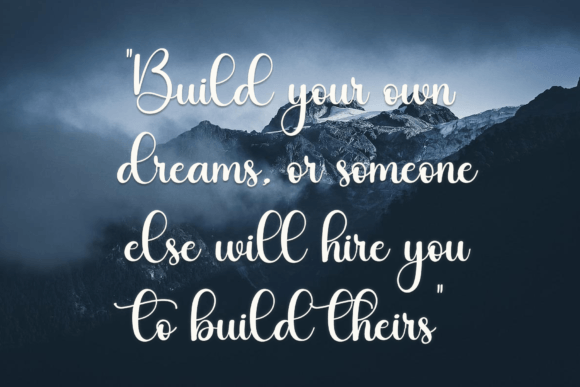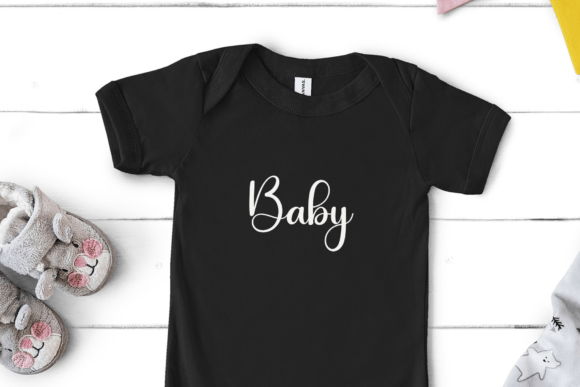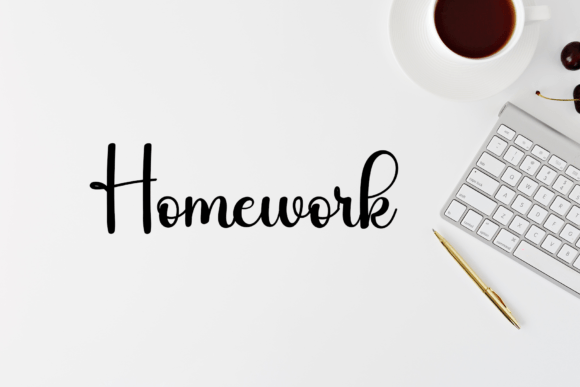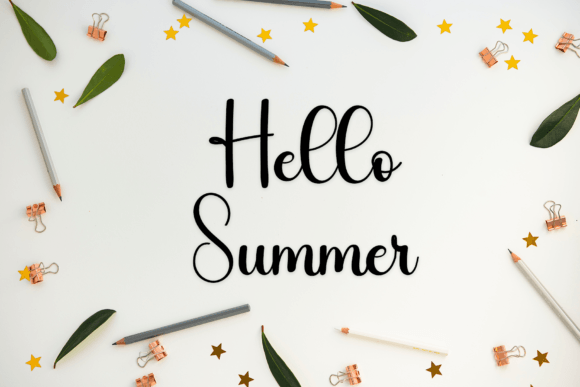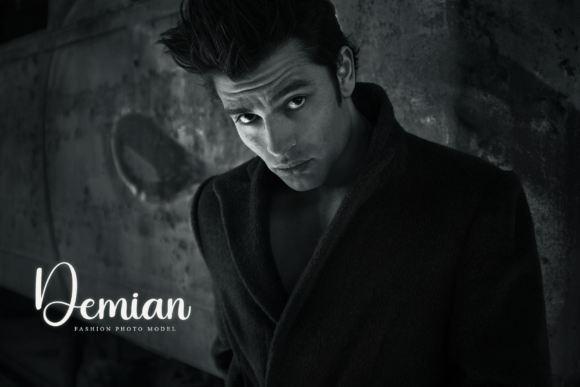
Baby Cute Font: The Perfect Choice for Delicate and Unique Designs
In the world of typography, fonts play a crucial role in conveying the tone and personality of a design. For designers and crafters looking for a delicate and unique font to add a touch of sweetness to their projects, Baby Cute Font is an excellent choice. This beautifully crafted handwritten font is perfect for creating cool and eye-catching designs that stand out from the crowd.
What is Baby Cute Font?
Baby Cute Font is a delicate handwritten font that is carefully designed to bring a touch of innocence and charm to any project. Its unique and elegant style makes it perfect for a wide range of applications, from writing letters and invitations to creating titles and labels for food products. With its soft and gentle appearance, Baby Cute Font is sure to capture the hearts of designers and crafters alike.
Key Features of Baby Cute Font
- Delicate Handwritten Style: Baby Cute Font boasts a beautiful, handwritten style that adds a personal touch to any design.
- Unique and Elegant: The font’s unique and elegant design makes it perfect for creating sophisticated and eye-catching designs.
- Versatile: Baby Cute Font can be used for a wide range of applications, including letters, invitations, food products, titles, and more.
- Easy to Read: The font’s clear and gentle appearance makes it easy to read, even in small sizes.
Uses of Baby Cute Font
Baby Cute Font is a versatile font that can be used in a variety of design projects. Here are some ideas to get you started:
- Invitations and Party Decor: Use Baby Cute Font to create adorable invitations, party hats, and decorations for baby showers, birthday parties, and other celebrations.
- Food Products: Add a touch of sweetness to your food product labels, packaging, and branding with Baby Cute Font.
- Stationery and Journaling: Use Baby Cute Font to create beautiful stationery, journals, and planners that are perfect for writing letters, journaling, and sketching.
- Signs and Displays: Create eye-catching signs and displays for your business or home with Baby Cute Font.
Tips for Using Baby Cute Font
To get the most out of Baby Cute Font, here are some tips to keep in mind:
- Pair with Other Fonts: Experiment with pairing Baby Cute Font with other fonts to create interesting and dynamic designs.
- Use in Combination with Images: Combine Baby Cute Font with beautiful images or illustrations to create stunning designs.
- Experiment with Colors: Try out different colors and color combinations to add depth and interest to your designs.
- Keep it Simple: Don’t be afraid to keep your design simple and elegant – Baby Cute Font is perfect for creating understated yet effective designs.
In conclusion, Baby Cute Font is a beautiful and versatile font that is perfect for designers and crafters looking to add a touch of sweetness to their projects. With its delicate handwritten style, unique and elegant design, and versatile uses, Baby Cute Font is sure to become a favorite in your design toolkit. So why not give it a try and see what amazing designs you can create?